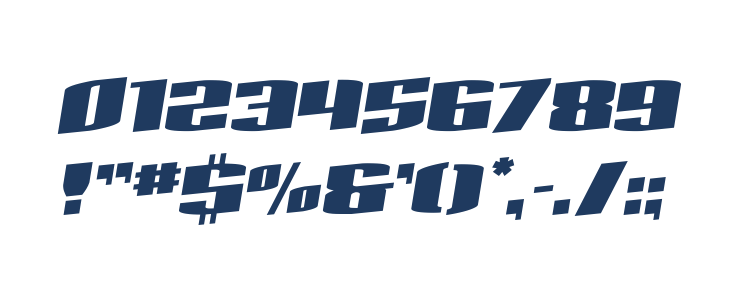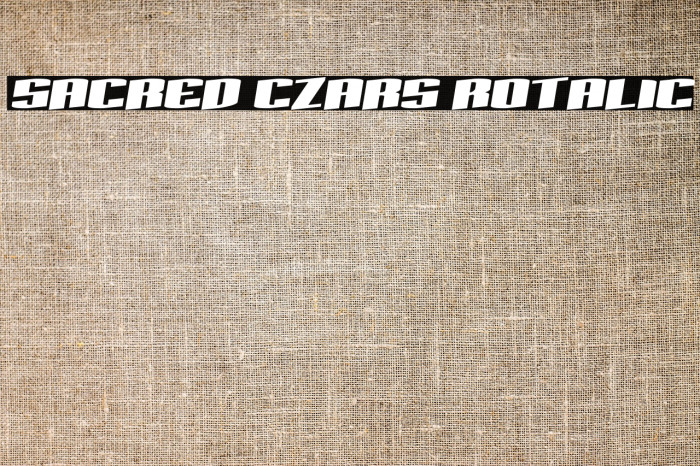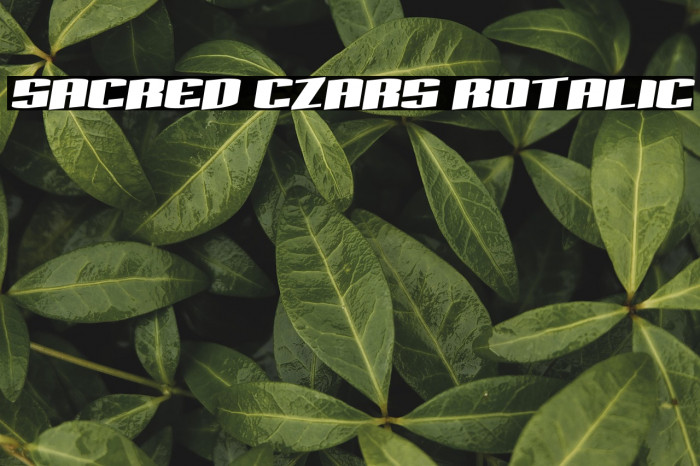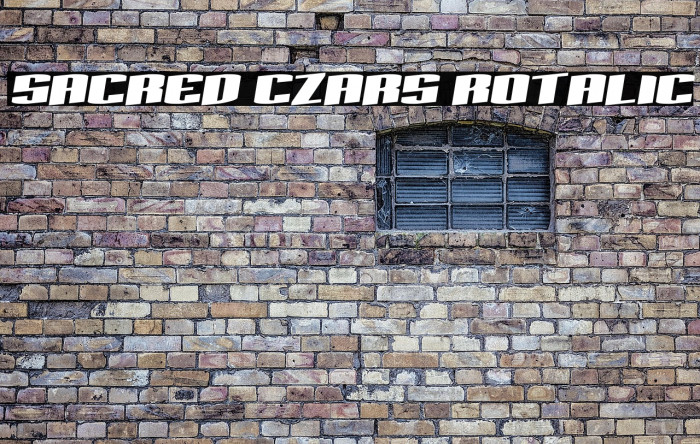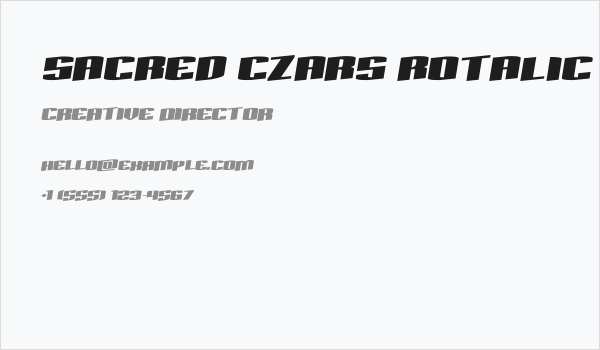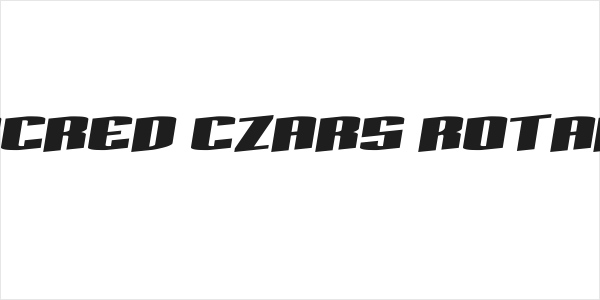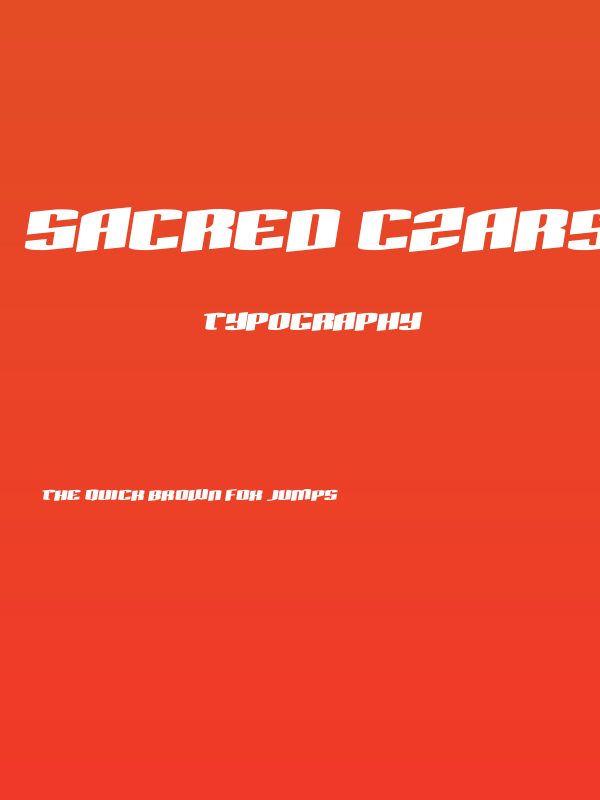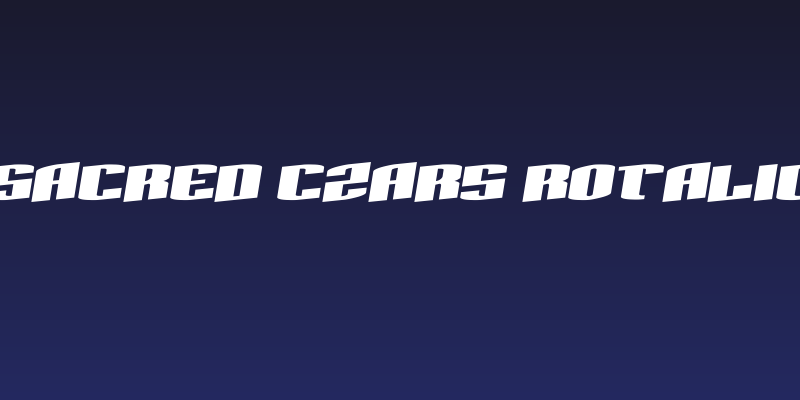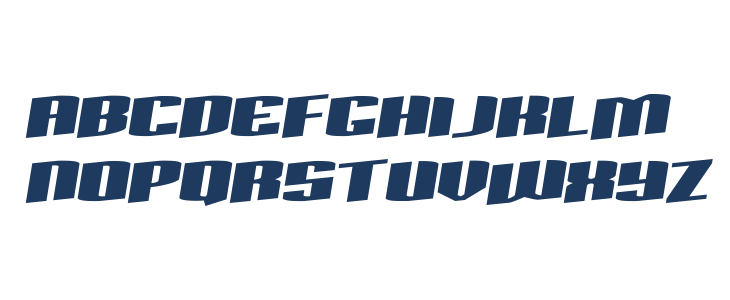
Sacred Czars Rotalic Font
Sacred Czars Rotalic Description
This font exudes a bold and dynamic presence with its sharply angled, italicized characters. The uppercase letters are robust and commanding, while the lowercase letters maintain a consistent style, enhancing readability. Numbers are equally bold, ensuring they stand out in any context. The special characters are designed with the same angular flair, providing a cohesive look across all elements. This font's unique style is perfect for making a strong visual impact.